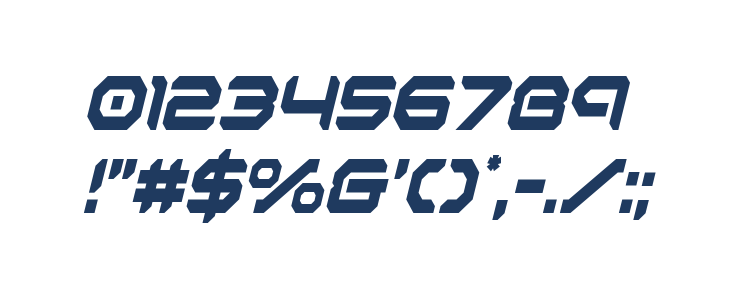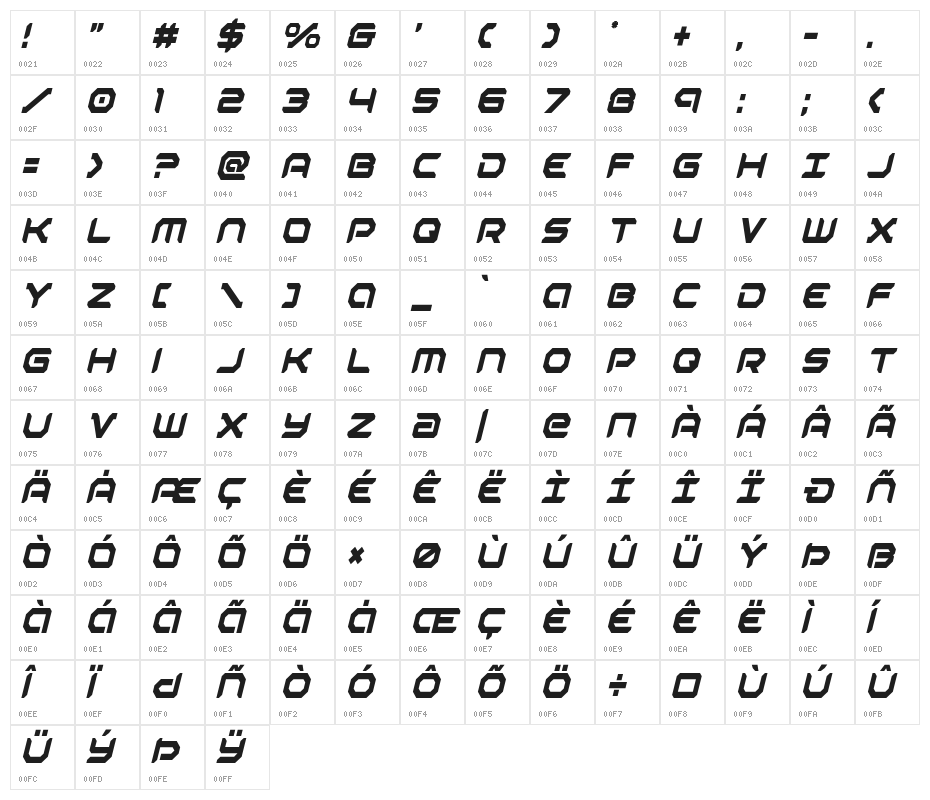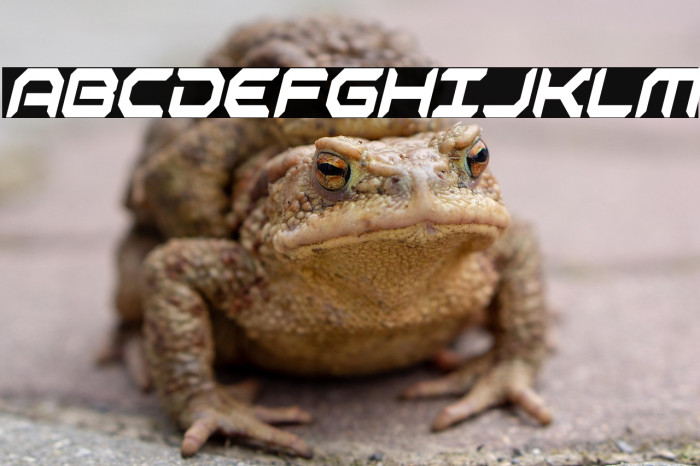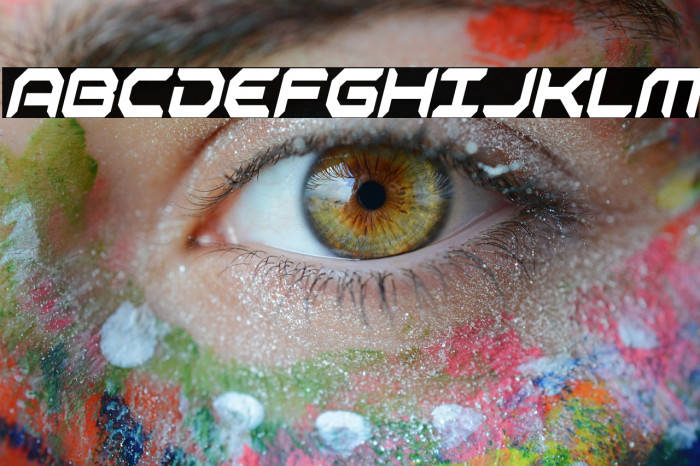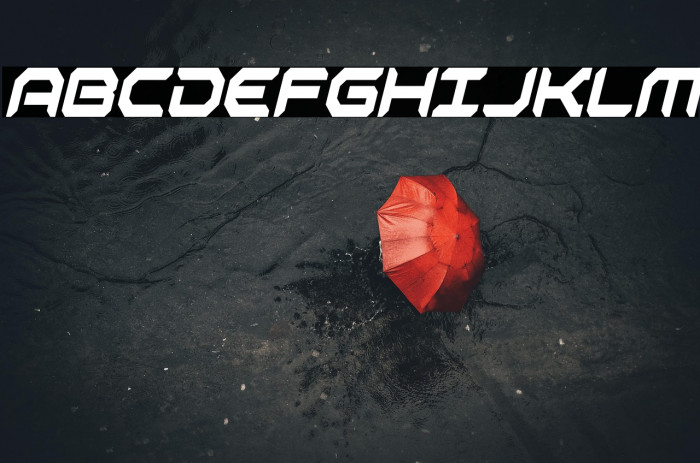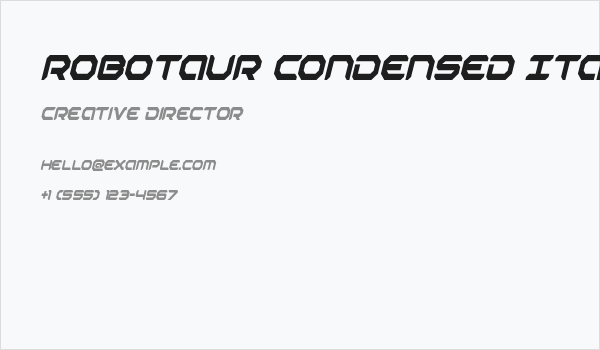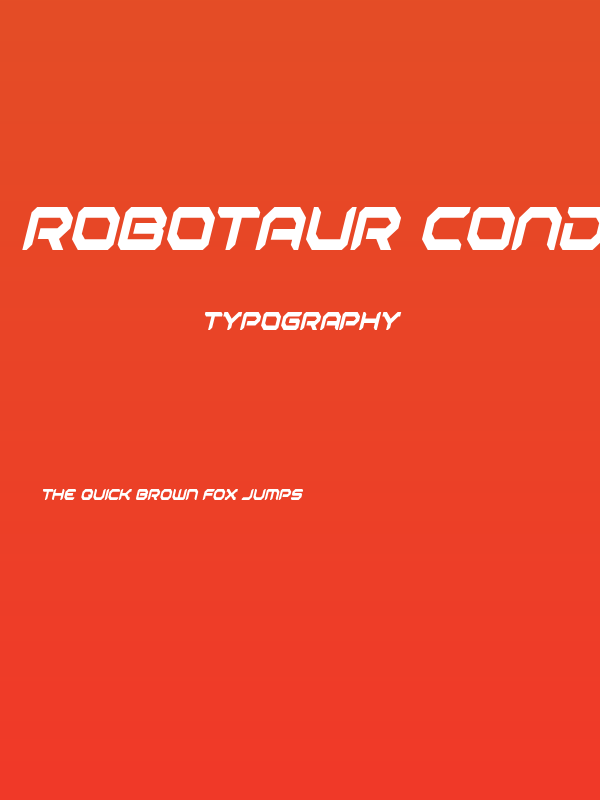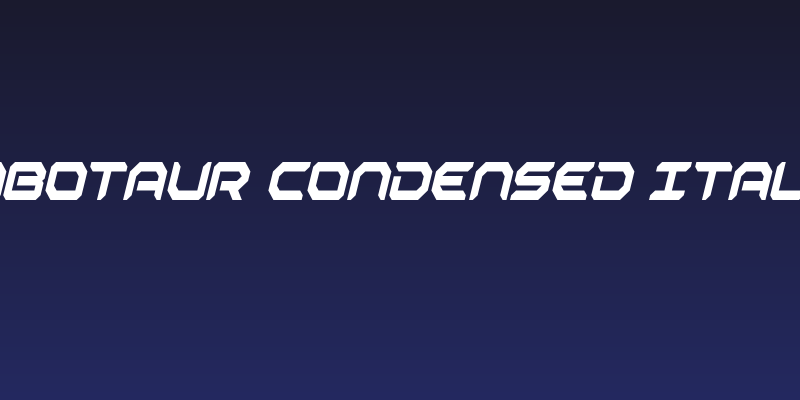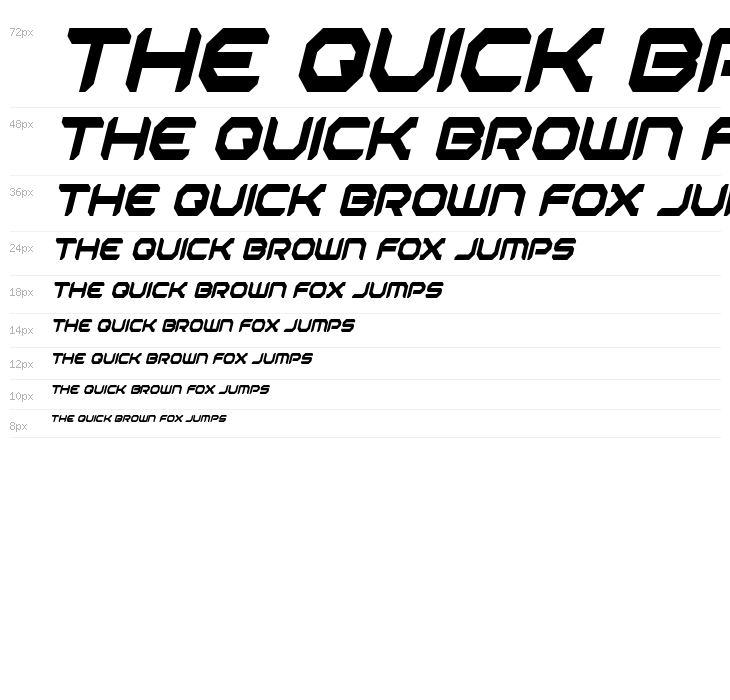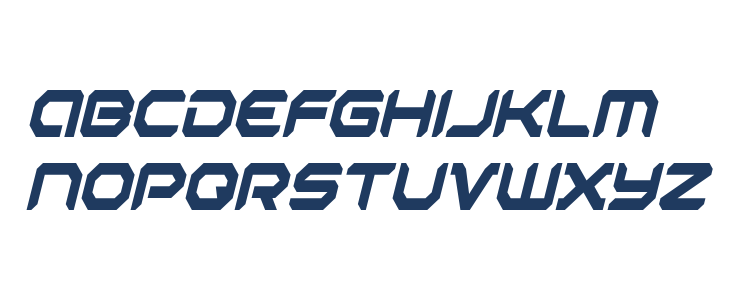
Robotaur Condensed Italic Font
Robotaur Condensed Italic Description
This font features a futuristic and angular design, characterized by its sharp edges and geometric shapes. The letters are condensed and italicized, giving them a sleek and dynamic appearance. The uppercase and lowercase letters maintain a consistent style, with a slight slant that adds to the modern aesthetic. The numbers and special characters follow the same design principles, ensuring uniformity across all glyphs. The overall look is bold and impactful, making it suitable for projects that require a strong visual presence.